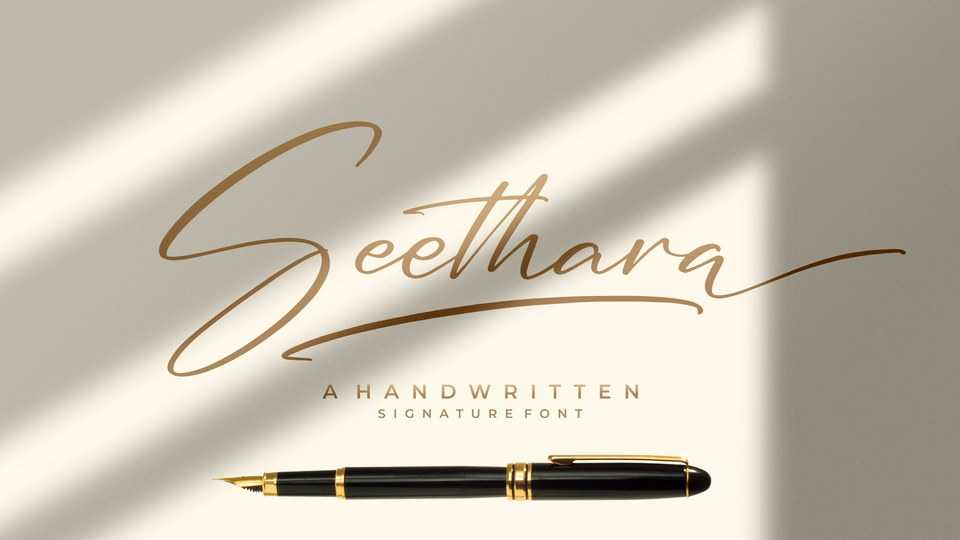
Download Seethara font, a premium signature style typeface with a natural flow. With its ravishing style and Seethara is perfect to create gorgeous wedding invitations, beautiful stationary art, eye-catching social media posts, and much more.
Designer: Integritype Studio